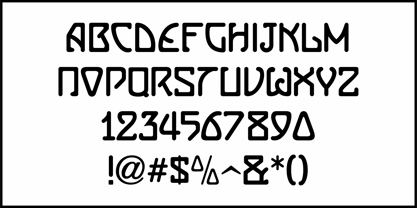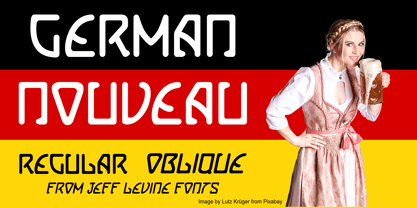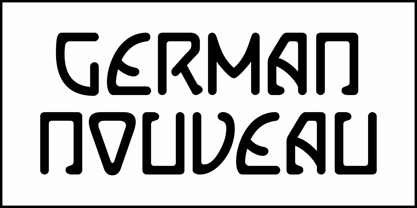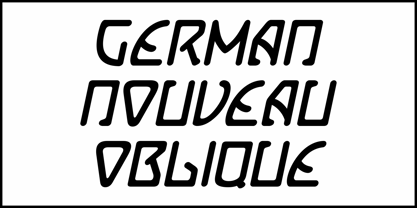
German Nouveau JNL
by Jeff Levine
A hand lettered alphabet drawn with a round nib pen was found within the pages of the 1911 book "Letters and Letter Construction" by Frederick James Trezise.
Named 'Modern German Letters', the design reflects the strong influences of Art Nouveau - utilizing straight lines, angles and curves in a way that bends the conventional rules of standard typography in order to form unique characters shapes.
While it was the designer's intent to 'modernize' the Blackletter calligraphic styles of the past, the end result was a more contemporary look for its time and doesn't reflect any of the characteristics of those older type faces. However, this digital revival keeps 'German' in its name as a tribute to the original, while adding in 'Nouveau" as a style descriptor.
German Nouveau JNL is available in both regular and oblique versions.